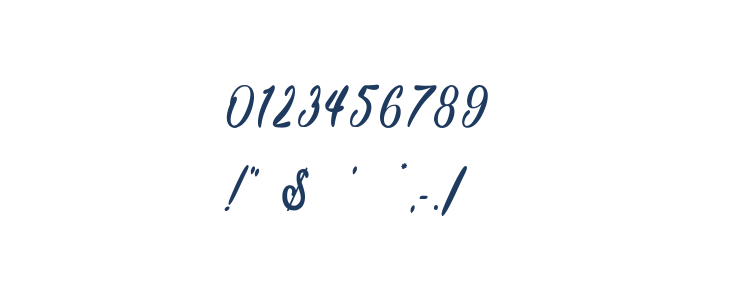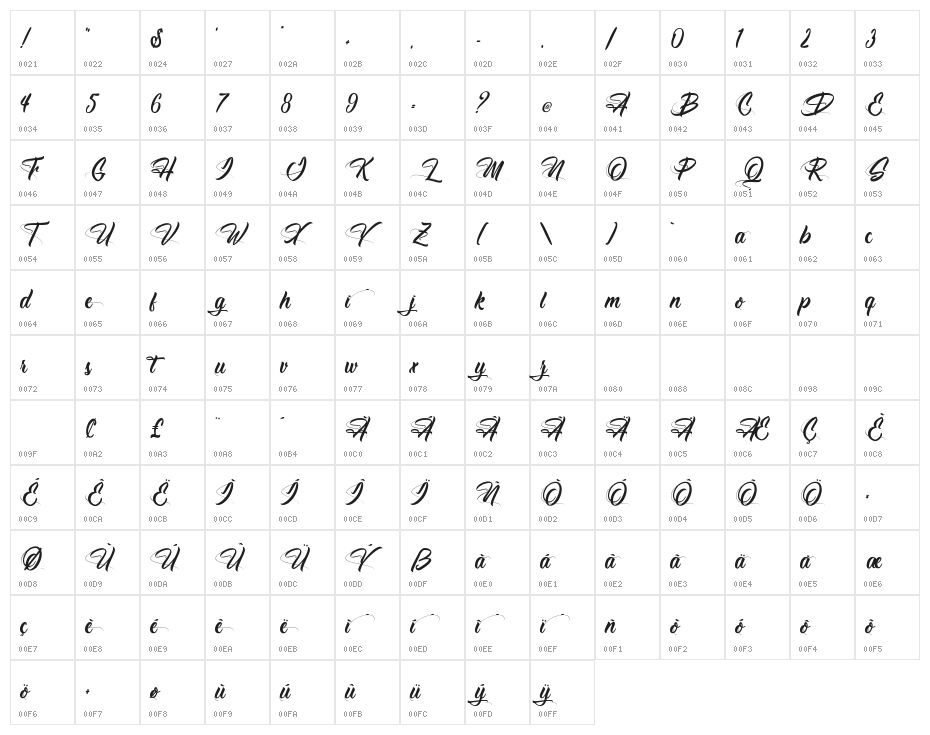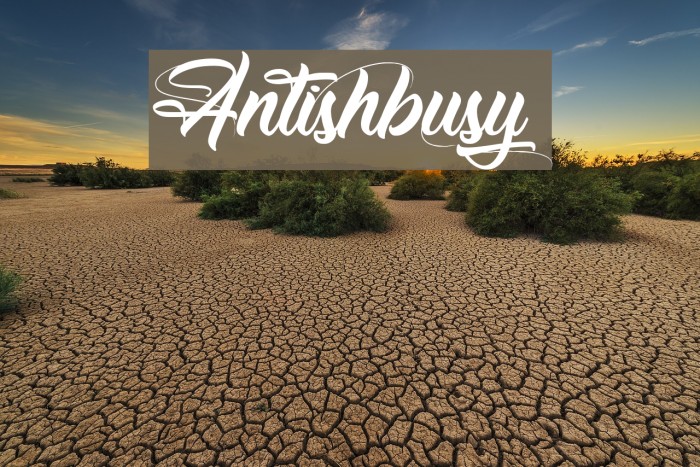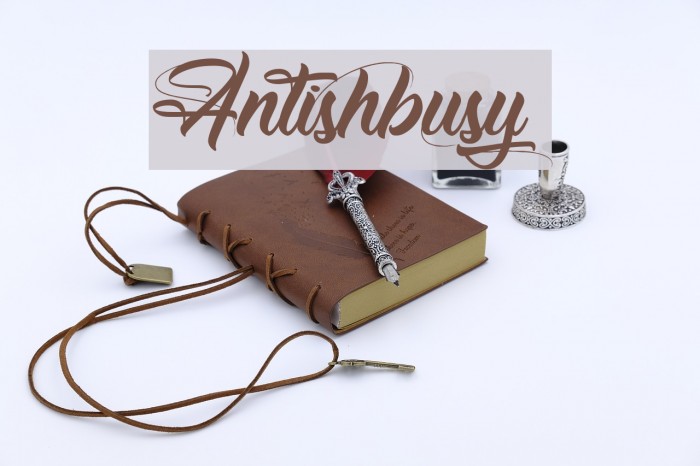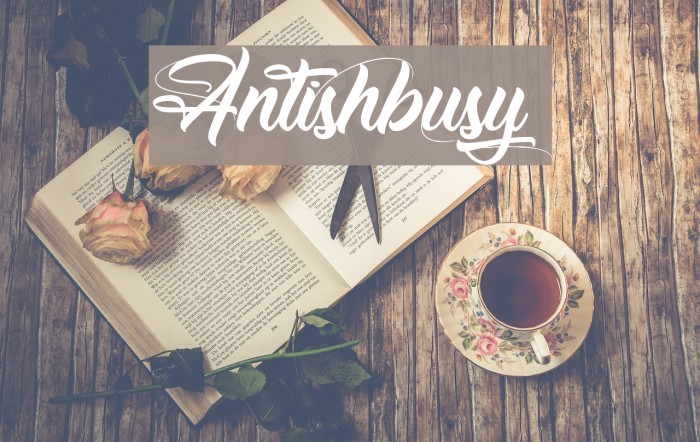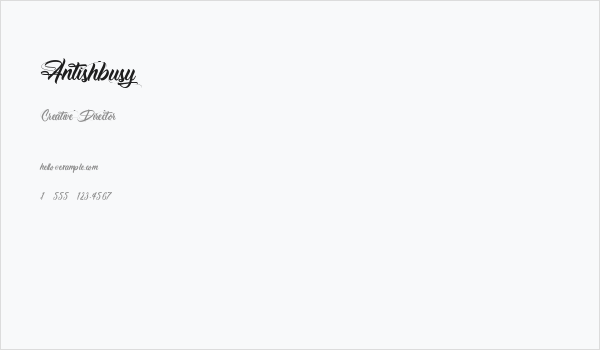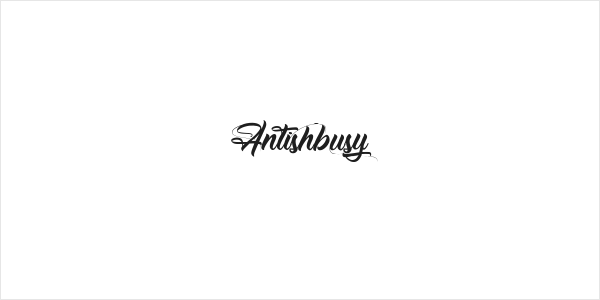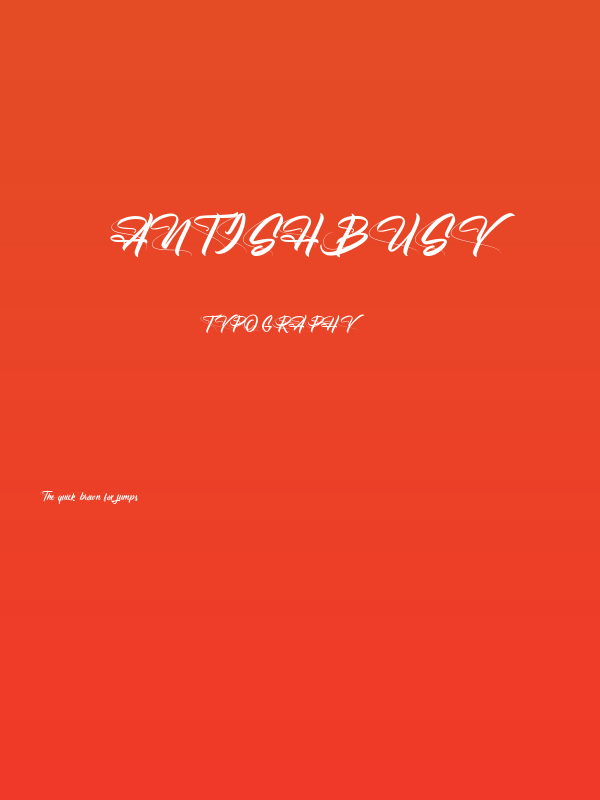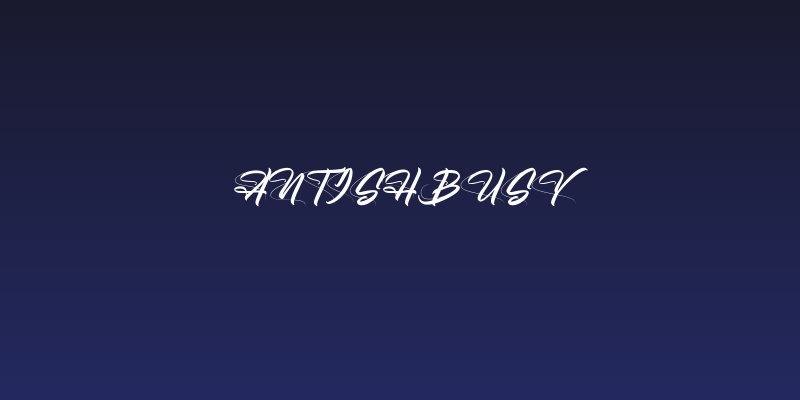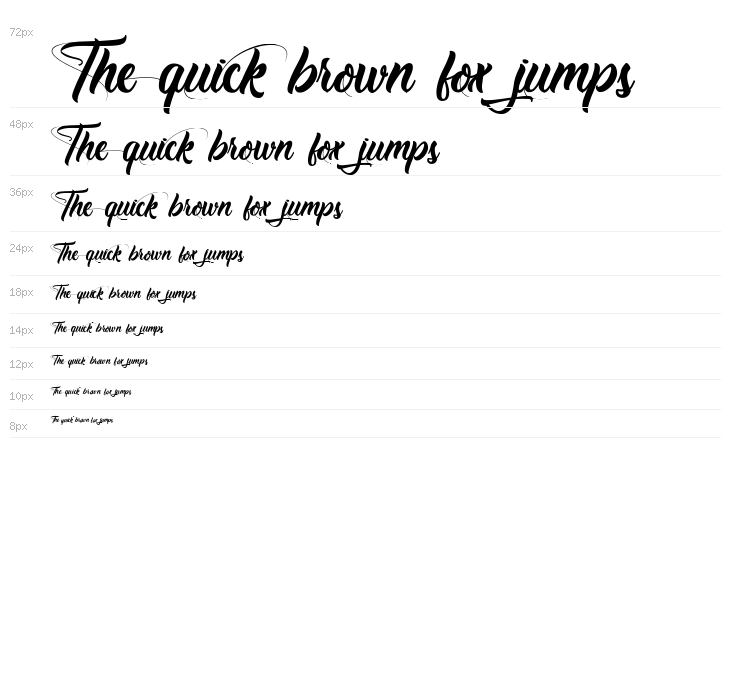
Antishbusy Font
Antishbusy Description
This font features an elegant and flowing script style, characterized by its intricate swashes and flourishes. The uppercase letters are ornate, with extended strokes that add a sense of movement and grace. The lowercase letters maintain a cohesive style, with smooth connections and a slightly slanted orientation. The numerals are consistent with the overall script theme, offering a harmonious look. Special characters are designed with similar attention to detail, enhancing the font's decorative appeal. This font is ideal for projects that require a touch of sophistication and elegance.
| Proposed Projects | Wedding invitations, luxury branding, elegant packaging, greeting cards, and decorative signage. |